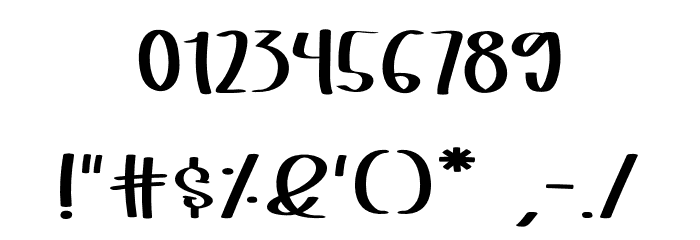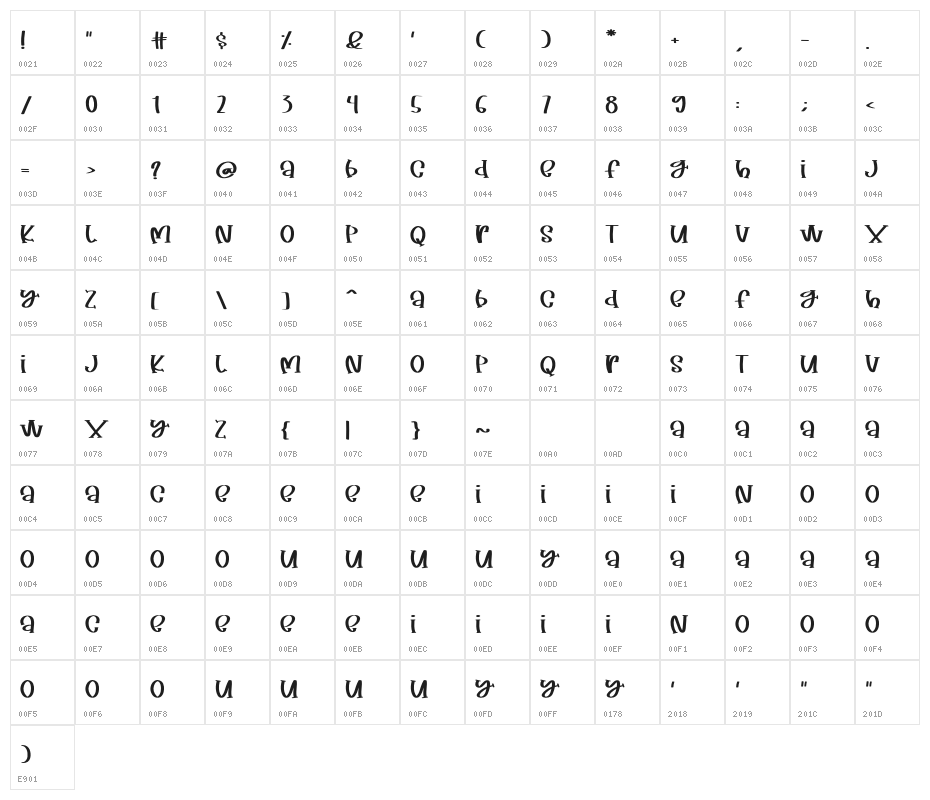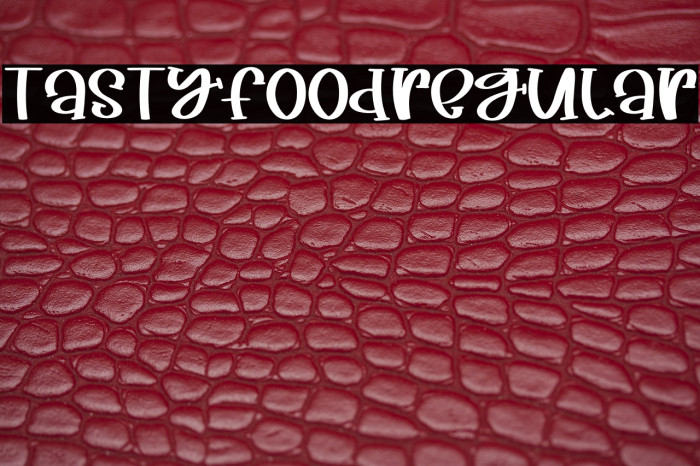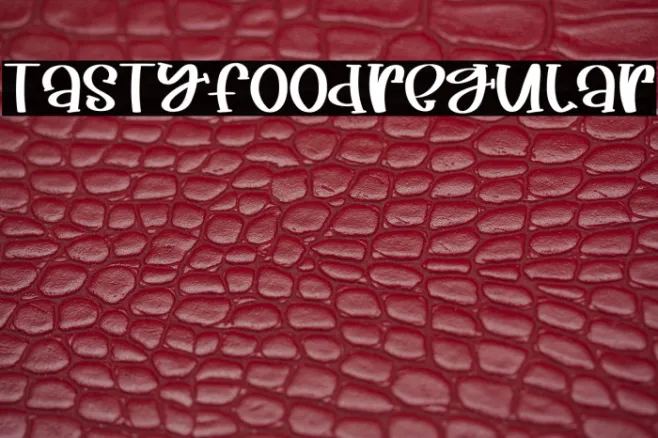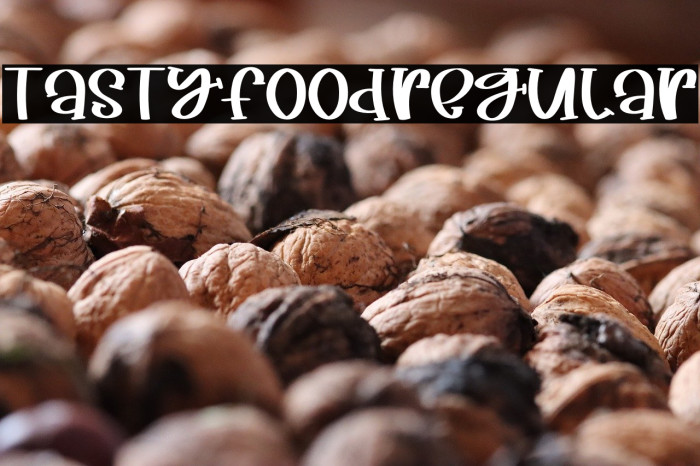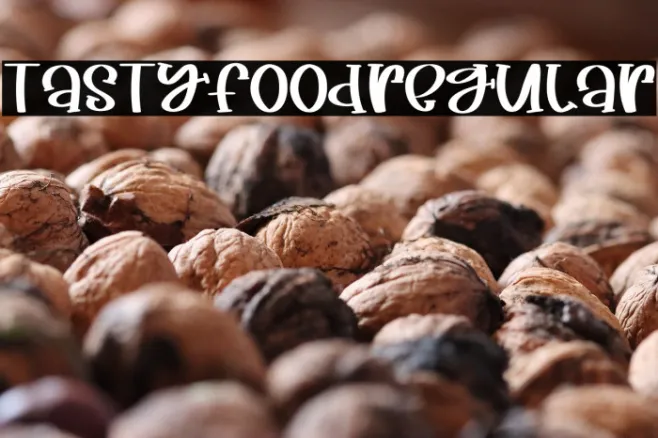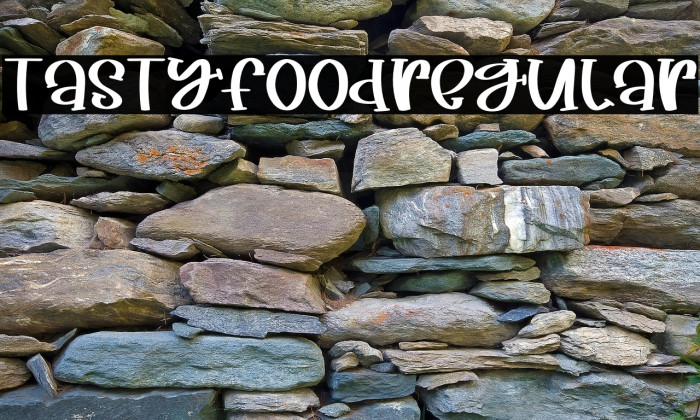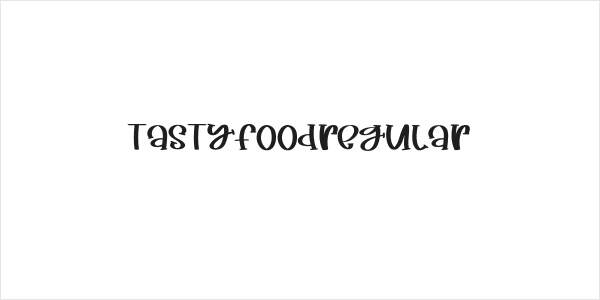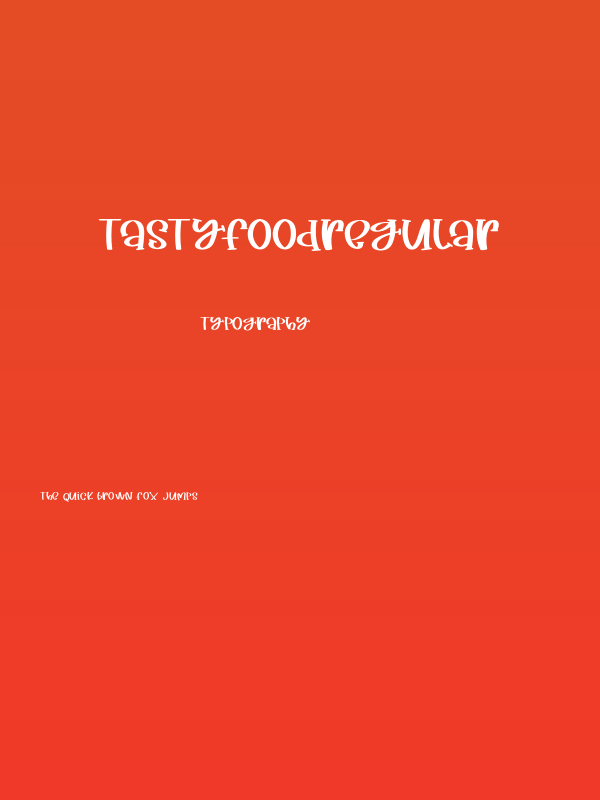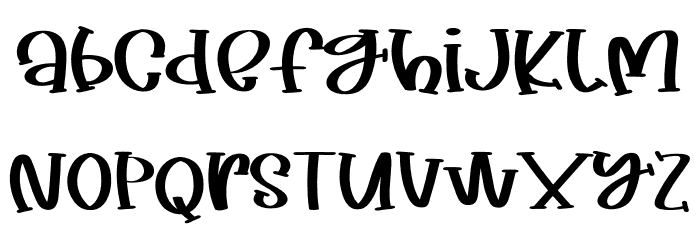
TastyFoodRegular Font
TastyFoodRegular Description
This font features a playful and whimsical style, characterized by its bold and flowing script. The letters have a hand-drawn appearance with a slight slant, adding a dynamic and lively feel. Each character is distinct, with exaggerated curves and loops that create a sense of movement. The uppercase letters are particularly bold, while the lowercase letters maintain a consistent flow. The numbers and special characters are designed to match the overall playful aesthetic, making this font ideal for creative and informal projects.
| Proposed Projects | Ideal for children's book covers, playful branding, greeting cards, and creative posters. |